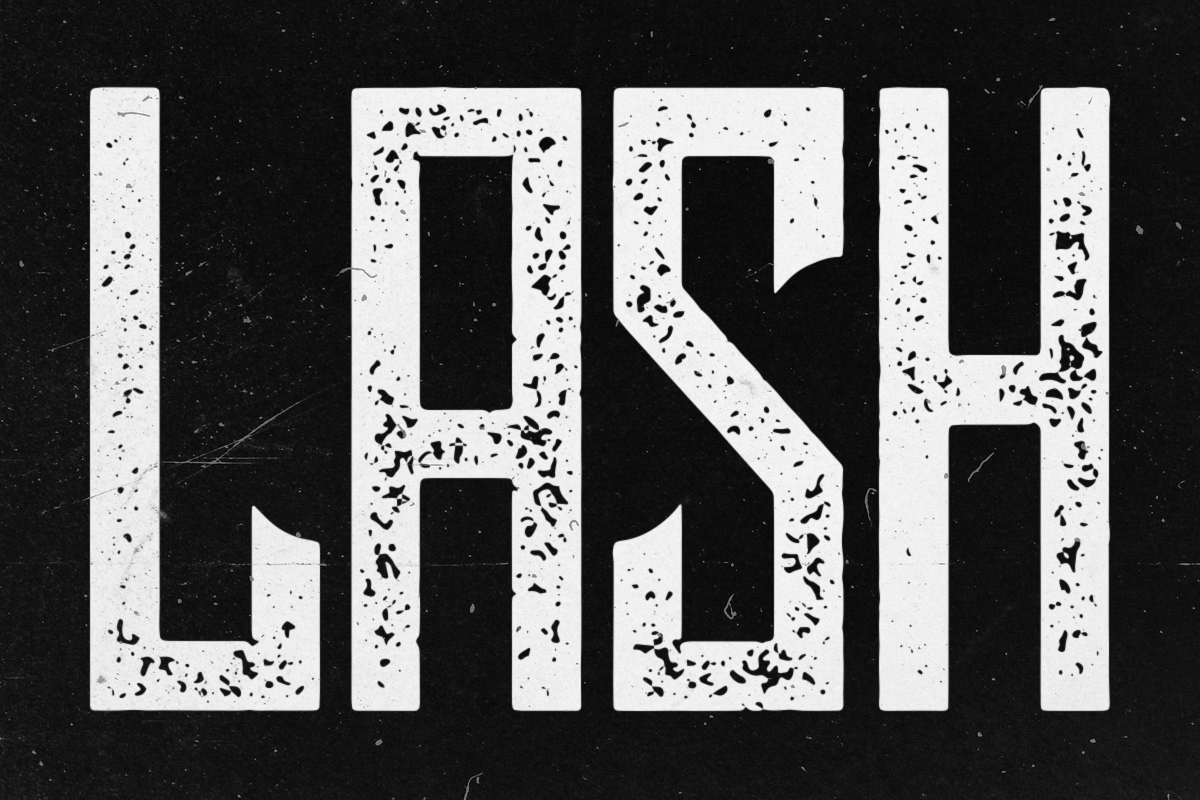
Lash Typeface
Lash Regular
Lash Rough
Lash is a tall display typeface that comes in rough and regular styles. It includes uppercase multilingual letters, numbers and punctuation.